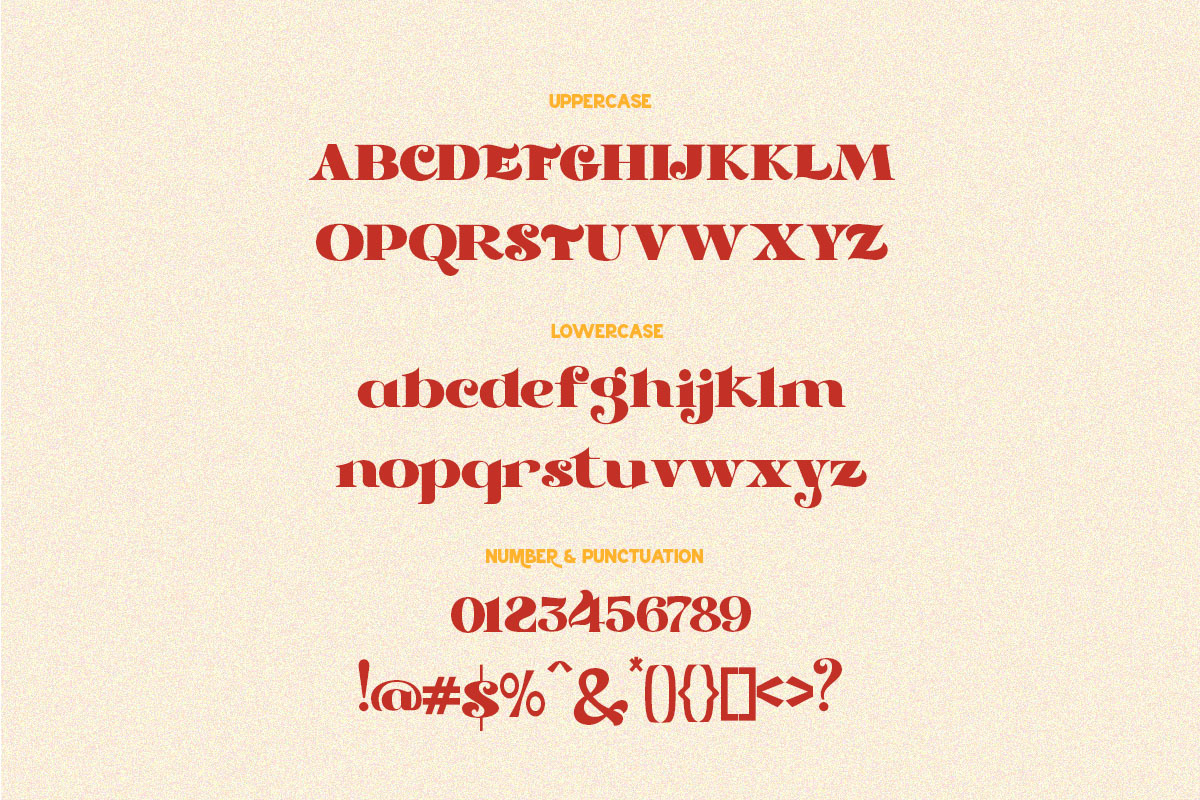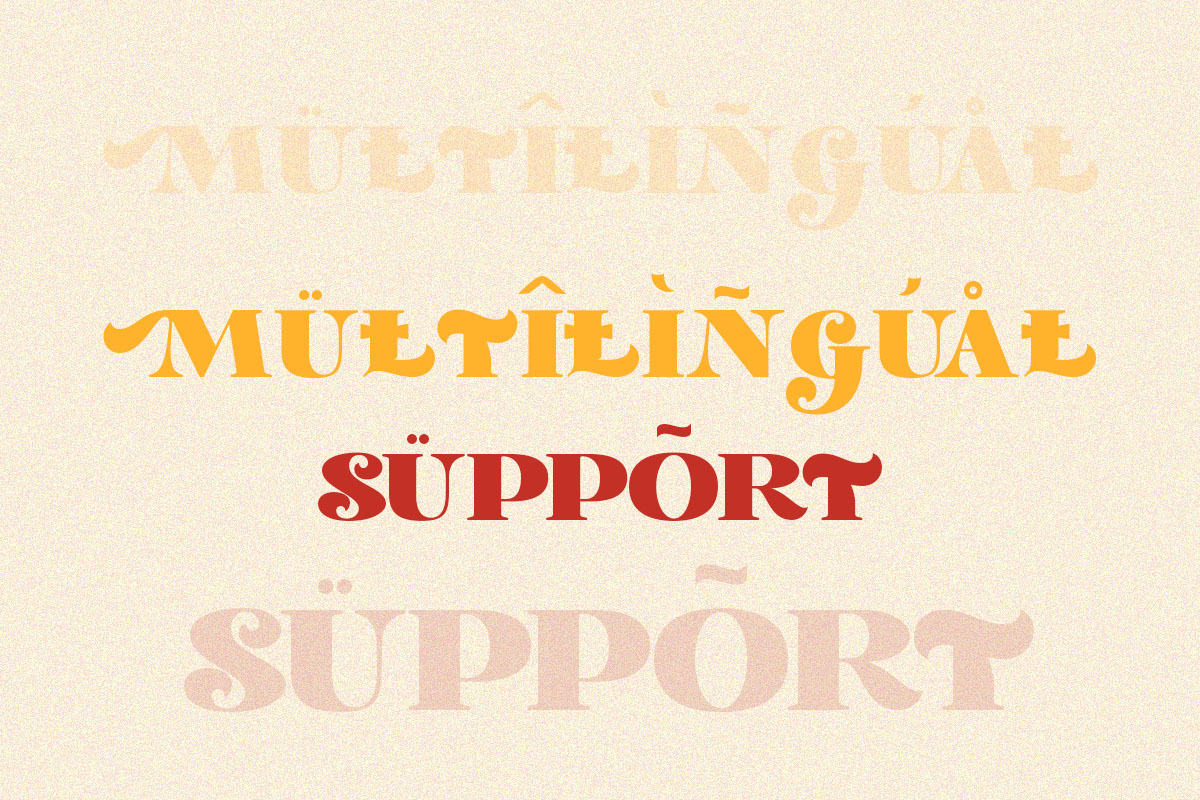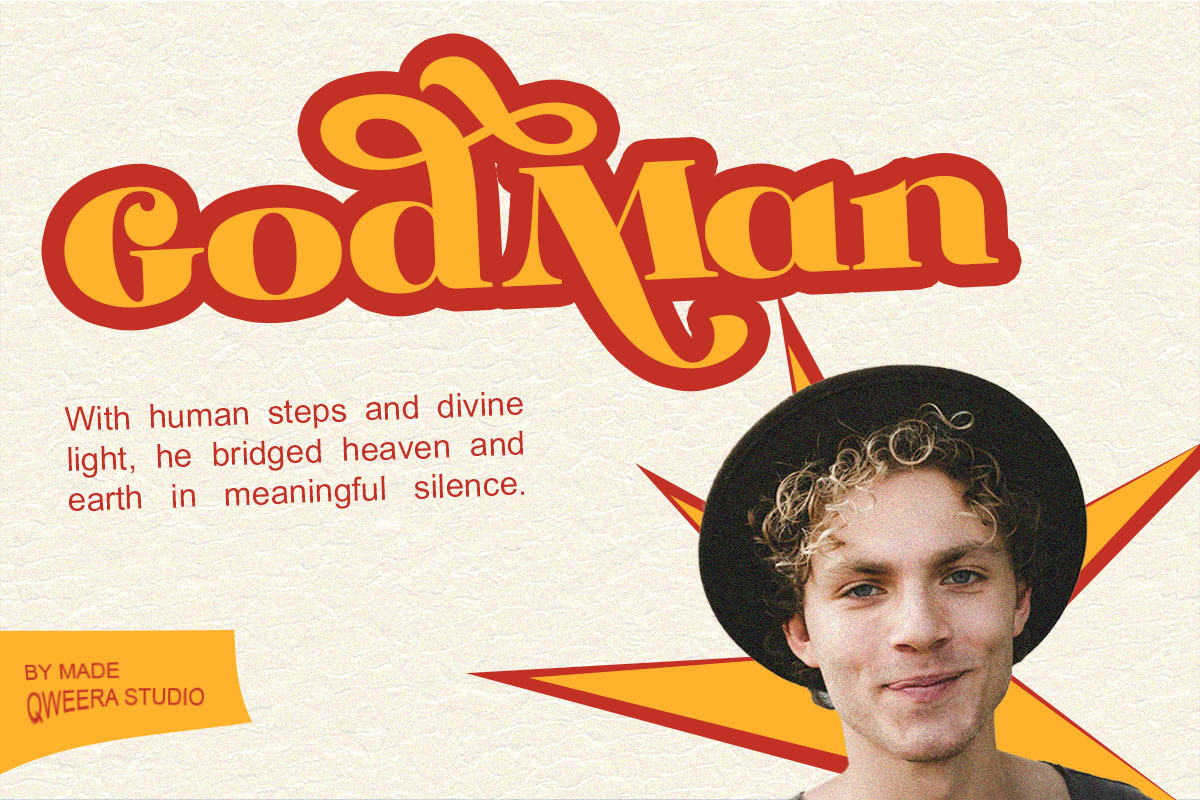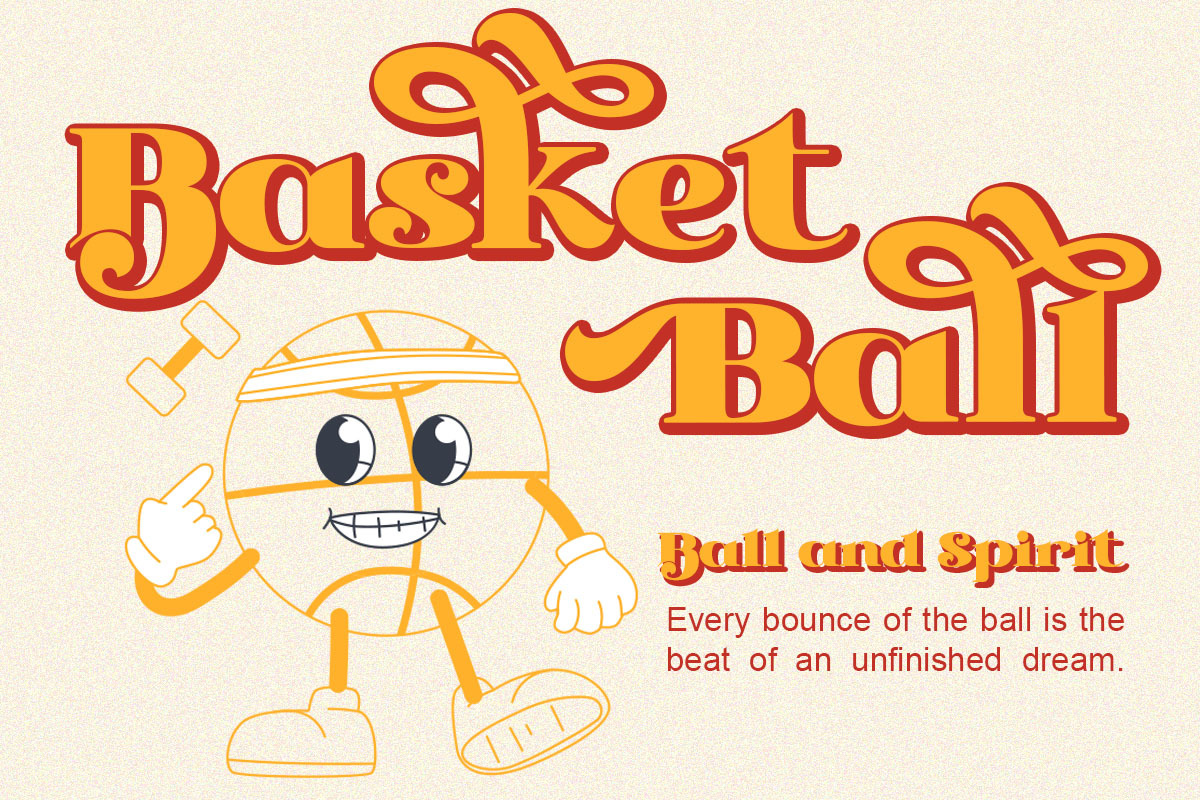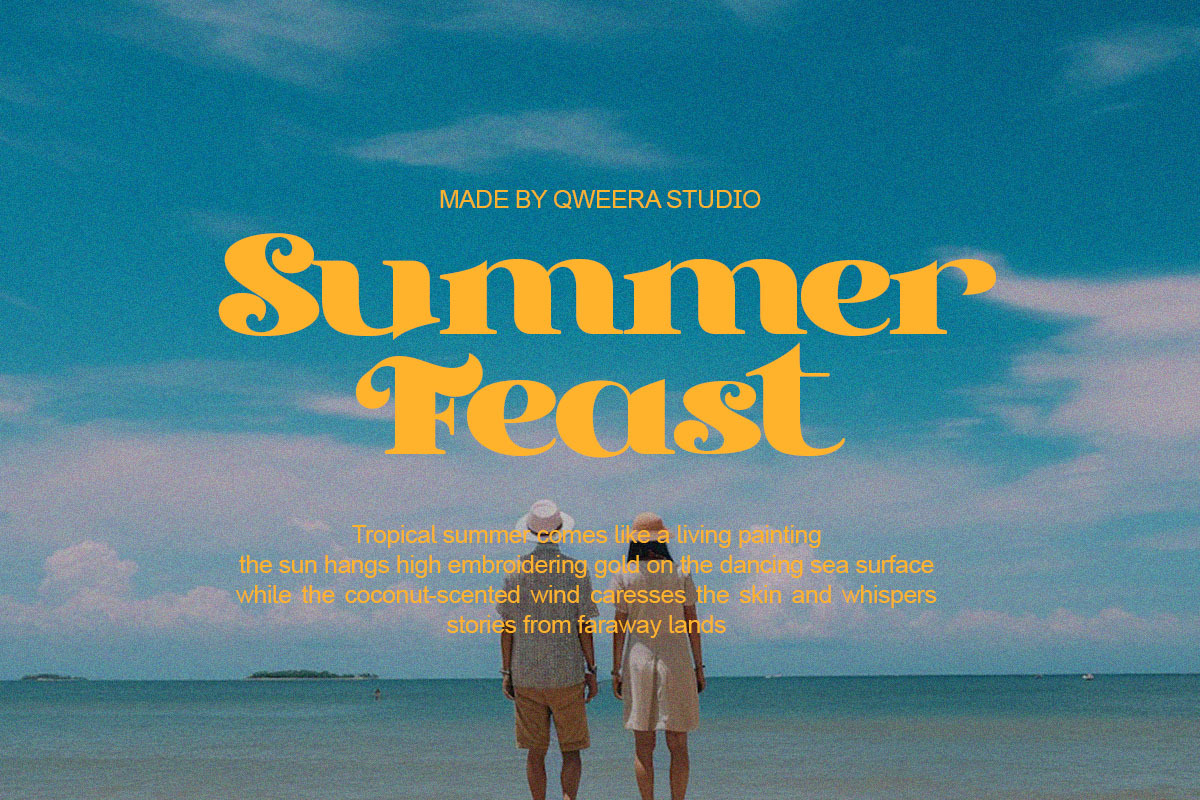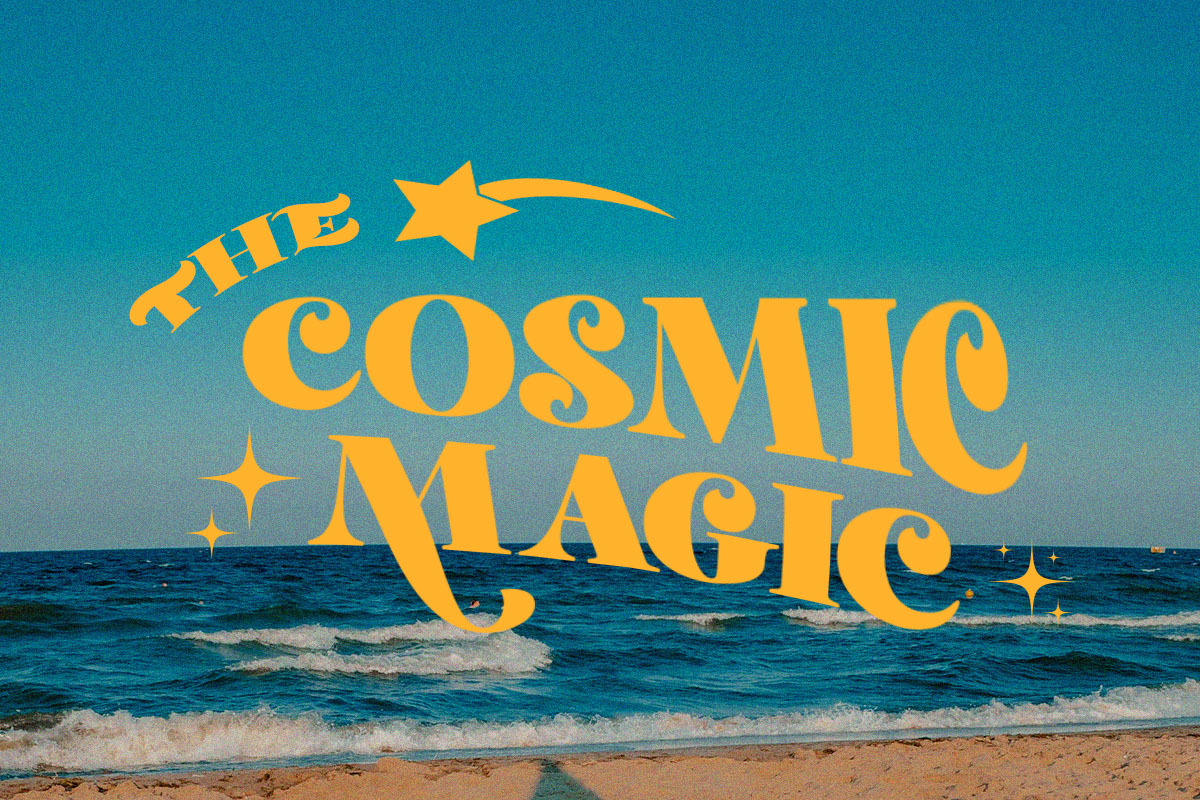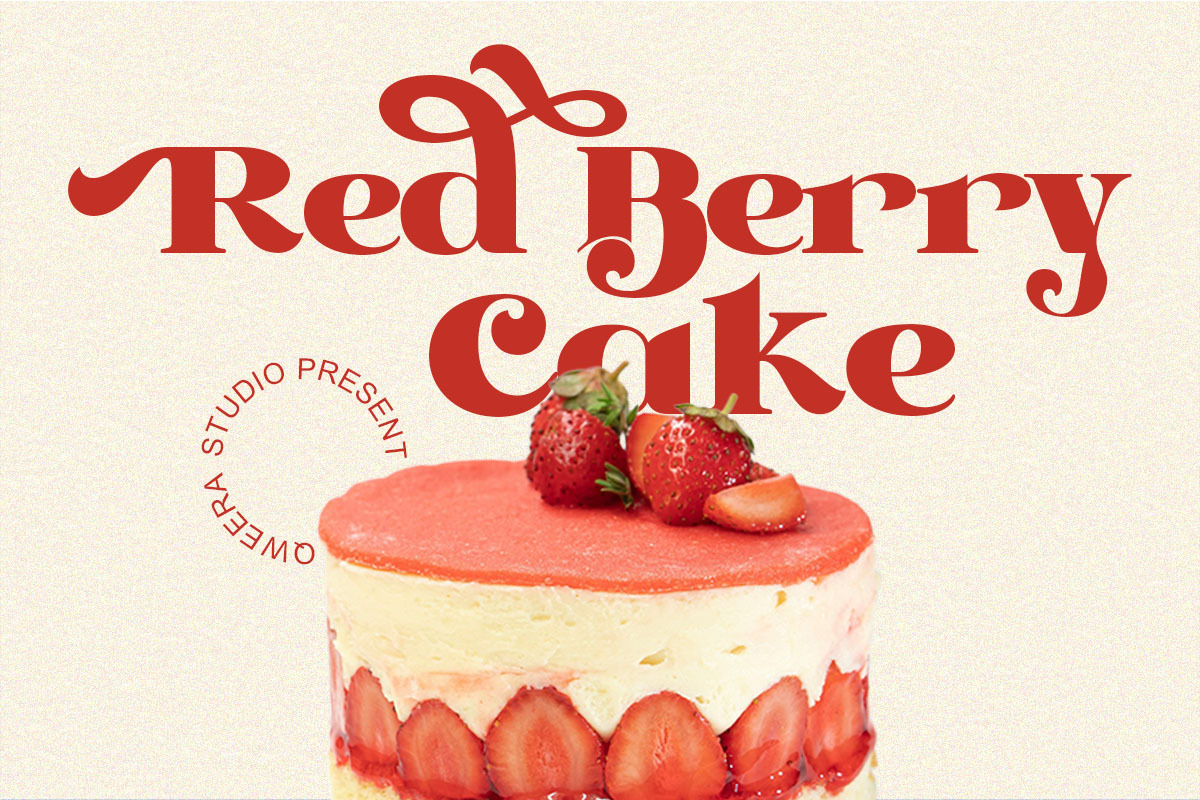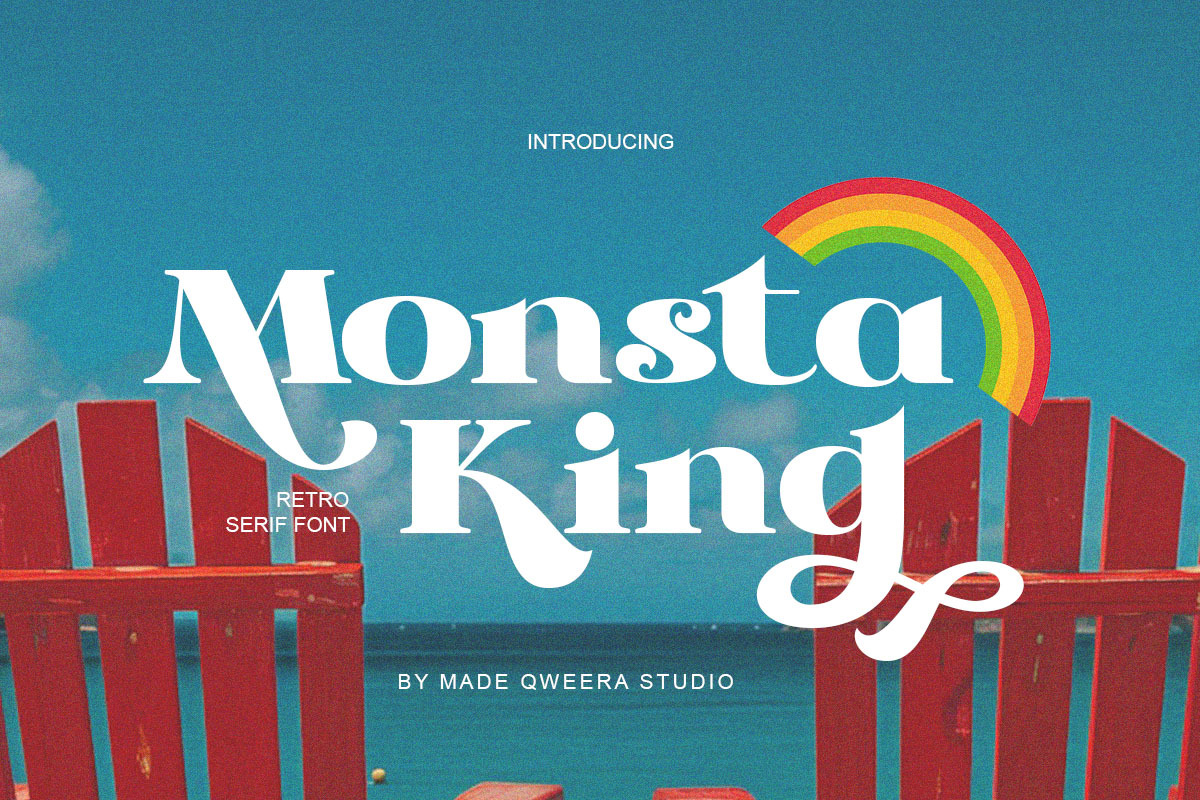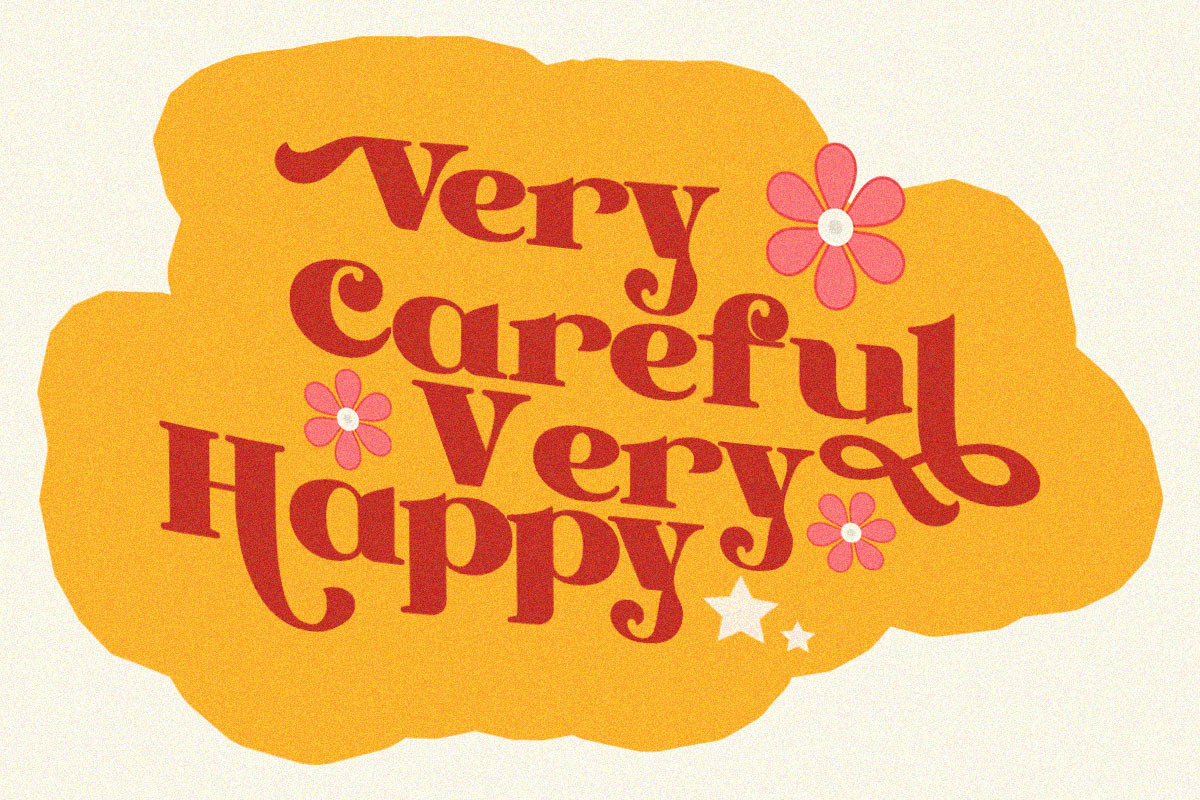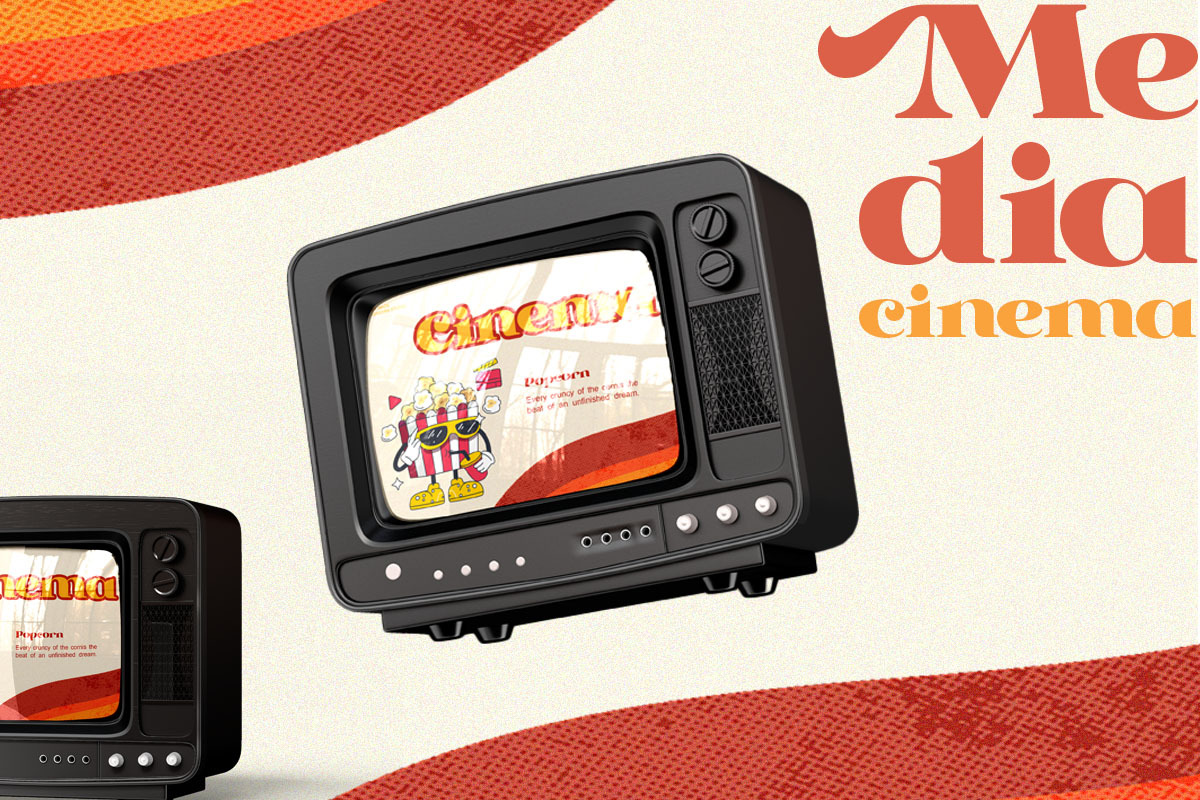
Markowl - Retro Stylish Serif
Introducing Markowl - a retro-inspired serif with a stylish twist and expressive charm.
Crafted with playful curves, quirky terminals, and high contrast, Markowl brings back the nostalgic feel of vintage editorial while adding a modern, expressive edge. Its unique letterforms deliver personality and energy in every word.
Markowl is a festive Christmas font perfect for holiday cards, Cricut crafts, winter mugs, farmhouse signs, party invites, and cozy branding. Ideal for print-on-demand, social media, and seasonal design projects that sparkle with warmth and cheer. A must-have font for designers, crafters, and creators during the holiday season.
From funky logos and packaging to fashion posters and social content, Markowl brings the groove — making your design stand out with confidence and style.
- Alternates & stylish ligatures
- Smooth kerning & sharp display details
- Retro-inspired branding & packaging
- Fashion lookbooks & lifestyle magazines
- Music posters & editorial design
- Bold logos & funky monograms
- Social media posts & content graphics
- Merch, stickers, apparel & more